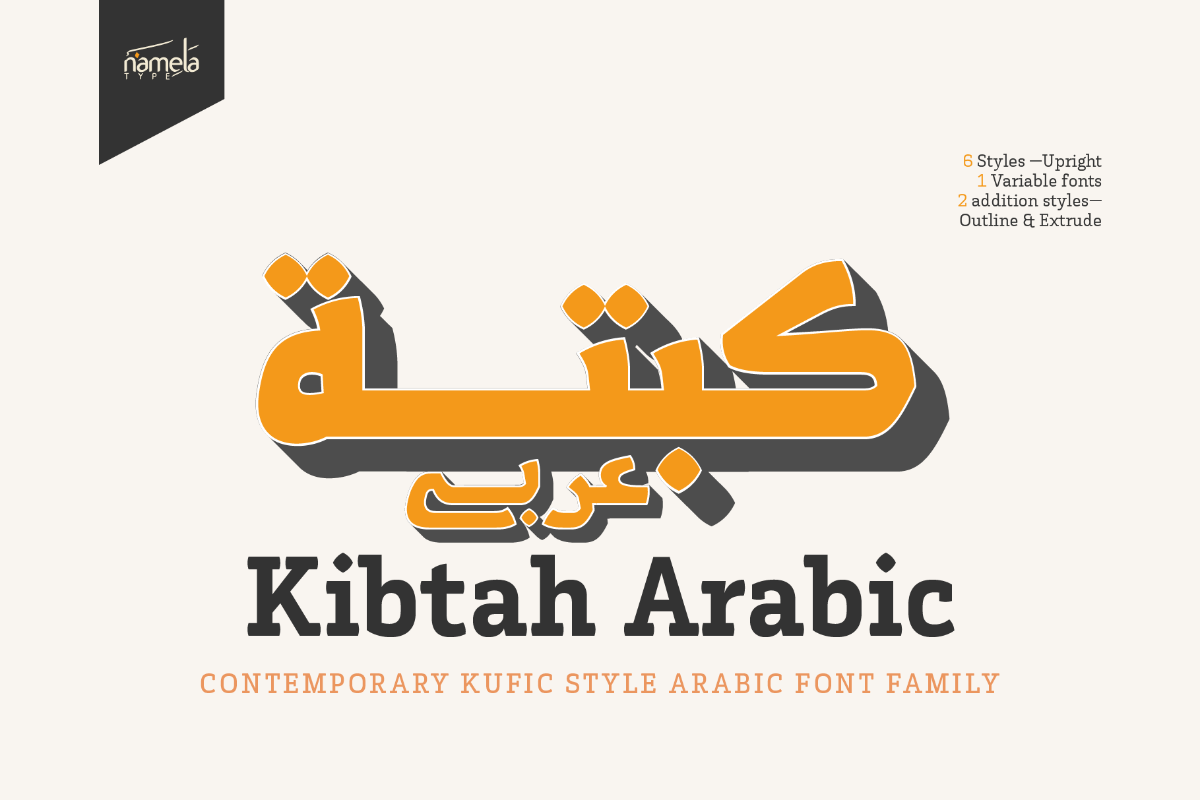
Kibtah Arabic Black
Kibtah Arabic Font - A Contemporary Kufic Typeface Branding & Apps Arabic typography carries a long and layered history, and within that tradition, few styles command as much authority as Kufic script. Angular, geometric, and structurally precise, Kufic stands as one of the earliest and most architecturally compelling forms of Arabic letterforms. Kibtah Arabic Contemporary Kufic Font takes that legacy and reshapes it for modern design—simplified, refined, and engineered for strong visual impac